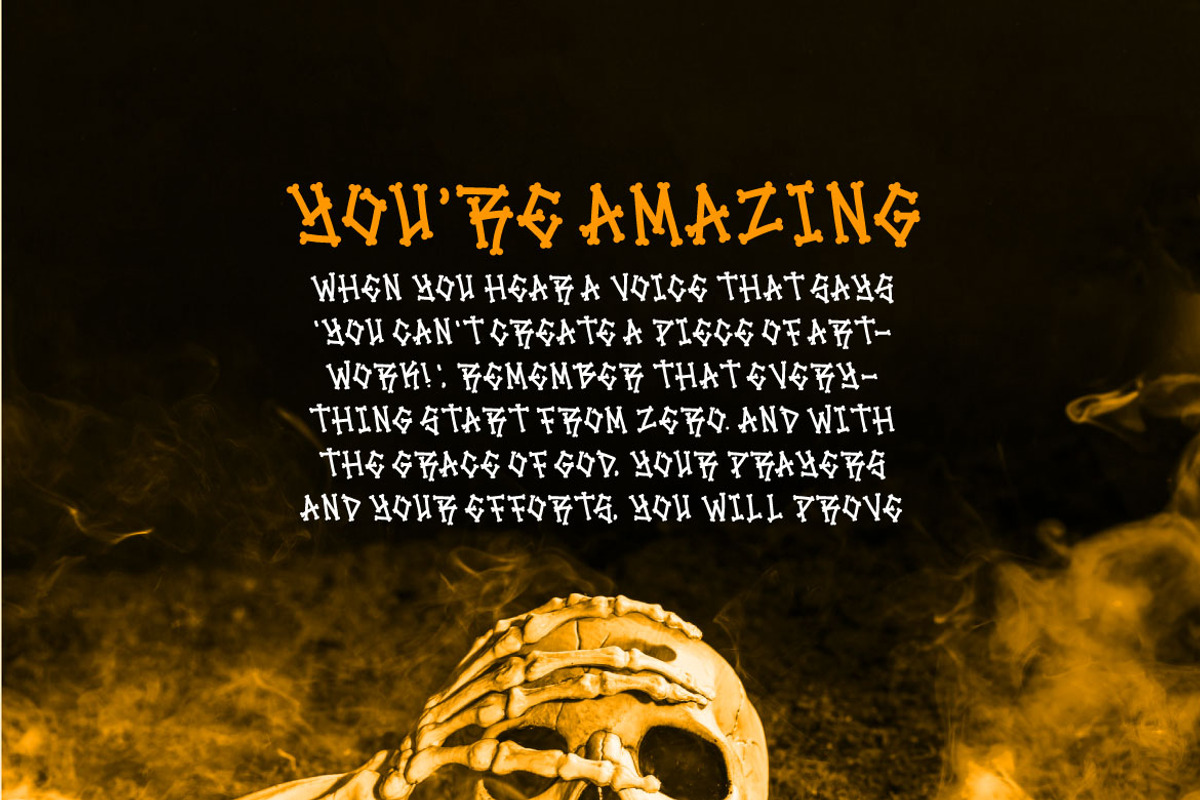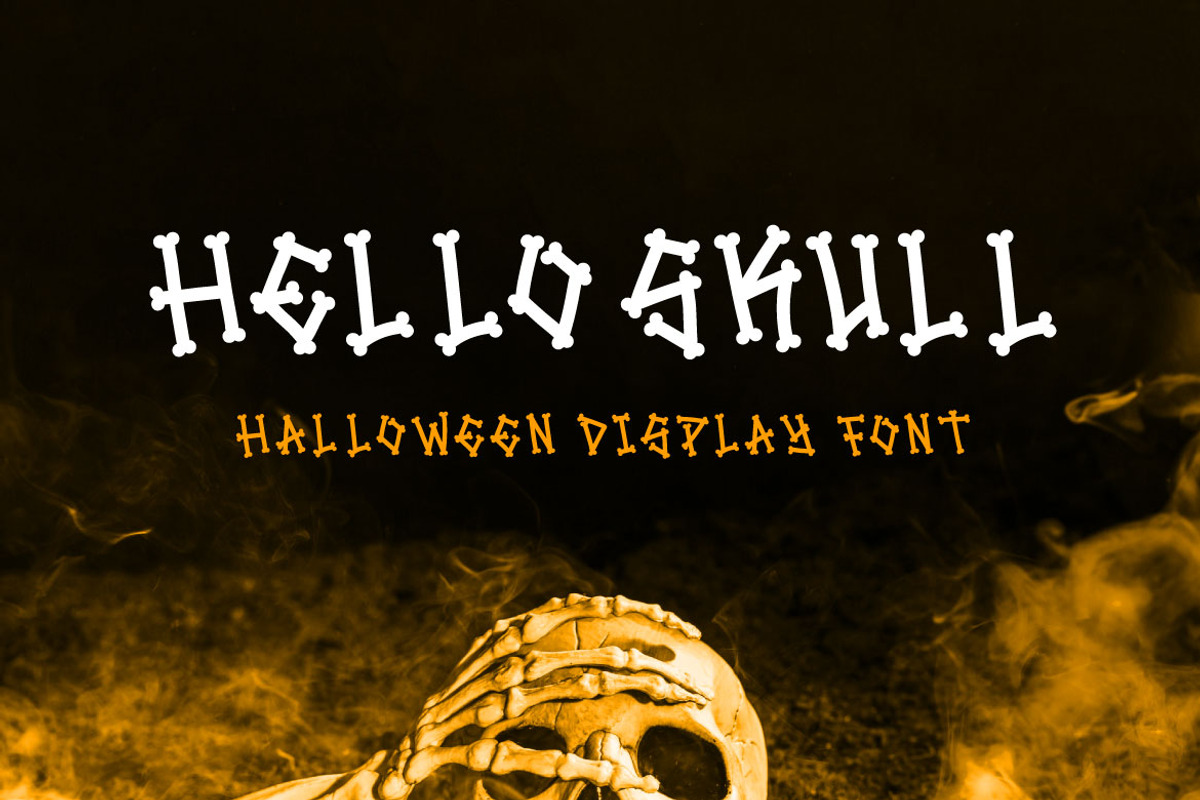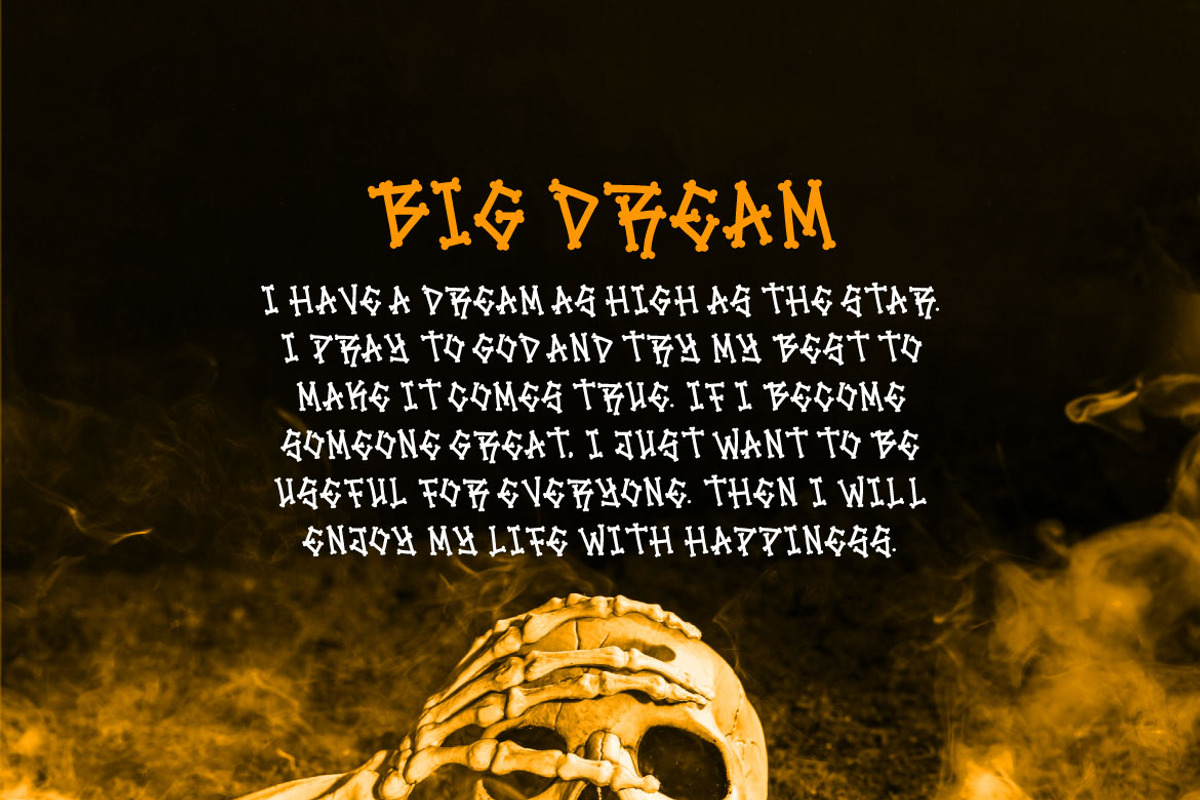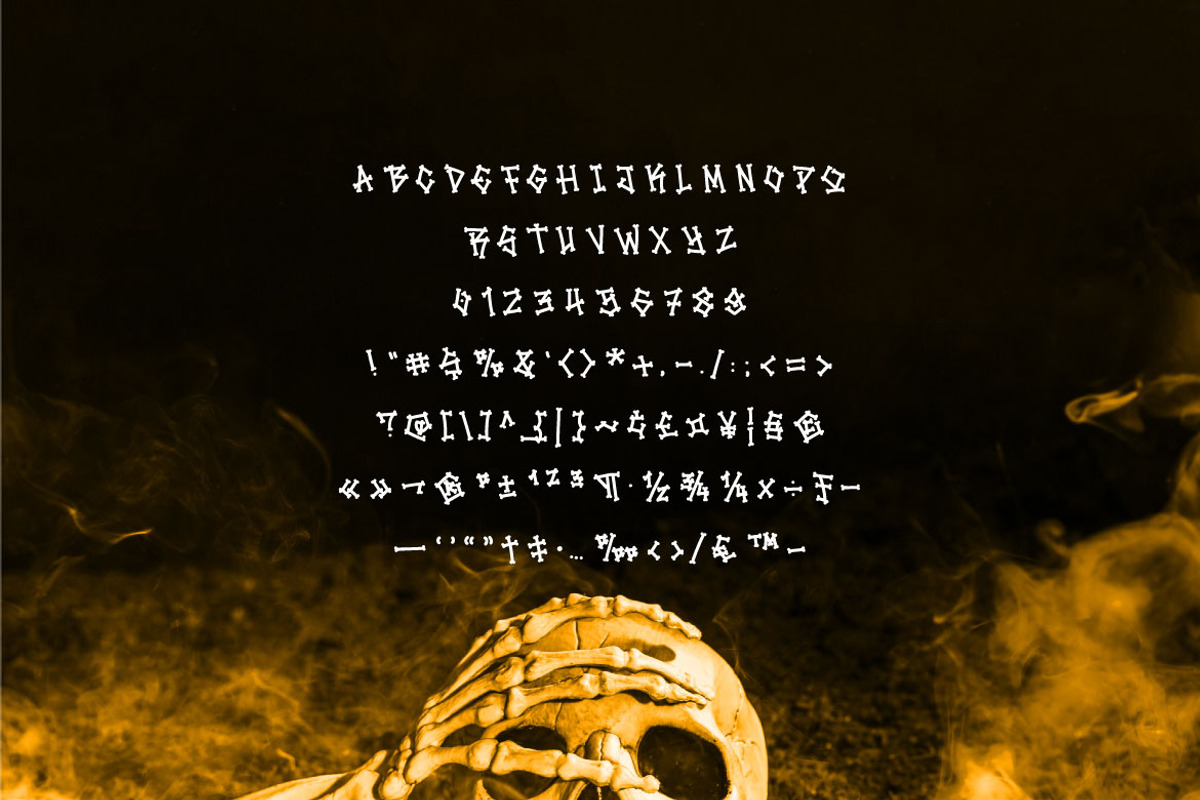
Hello Skull-Decorative Halloween
Hello! Hello Skull is a halloween display font. Hello Skull can be used in any works such as comic book, poster, school, flyer, book title, advertisement, social media content, logo and many more.